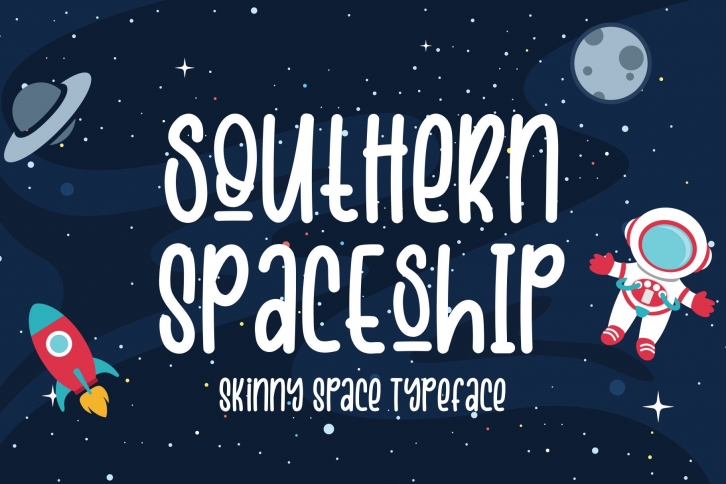
Southern Spaceship is a casual, easy-to-read display font that conveys impeccable friendliness. This font is PUA encoded which means you can access all of the glyphs and swashes with ease!Â